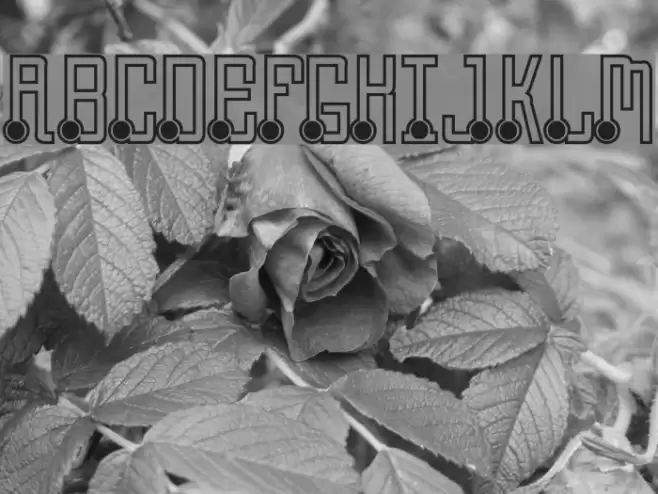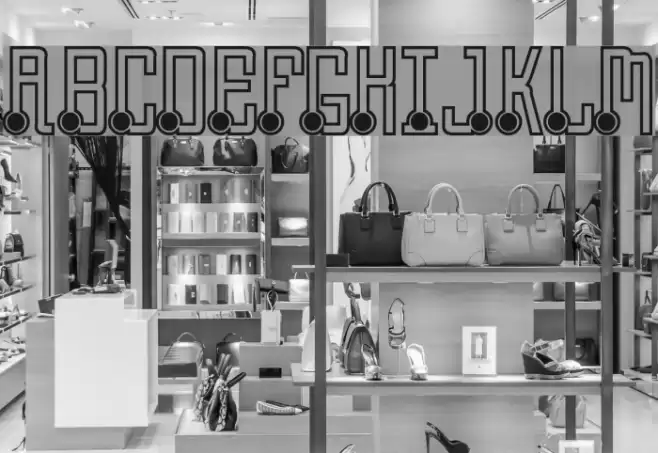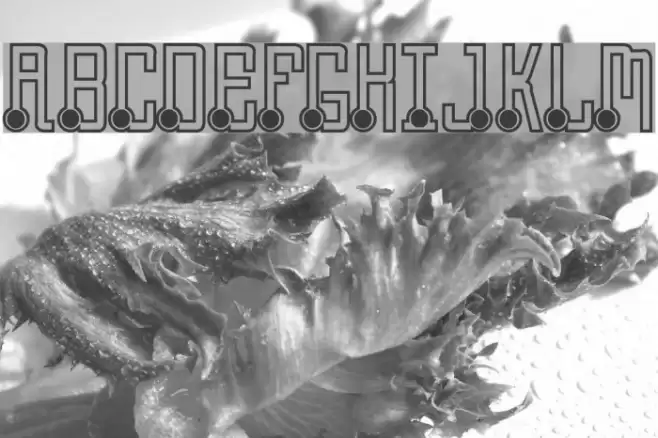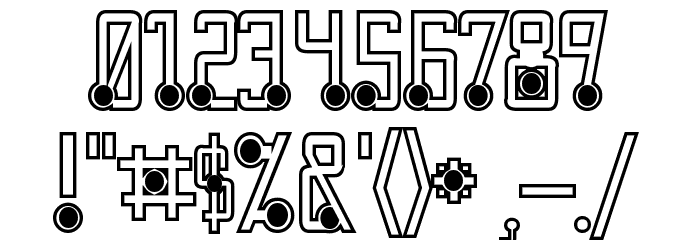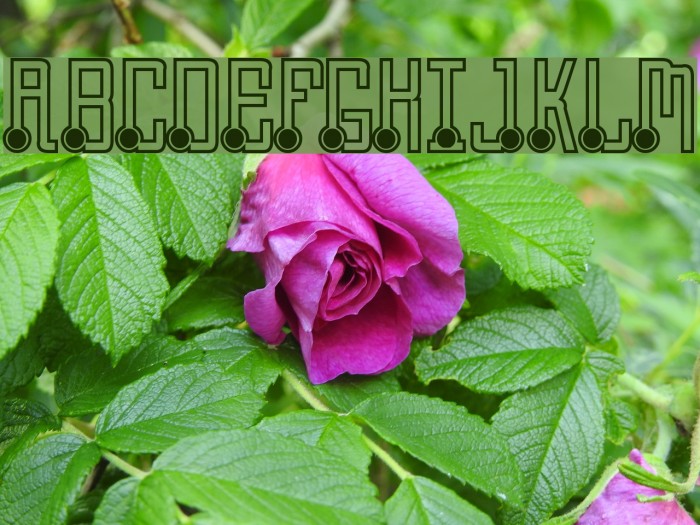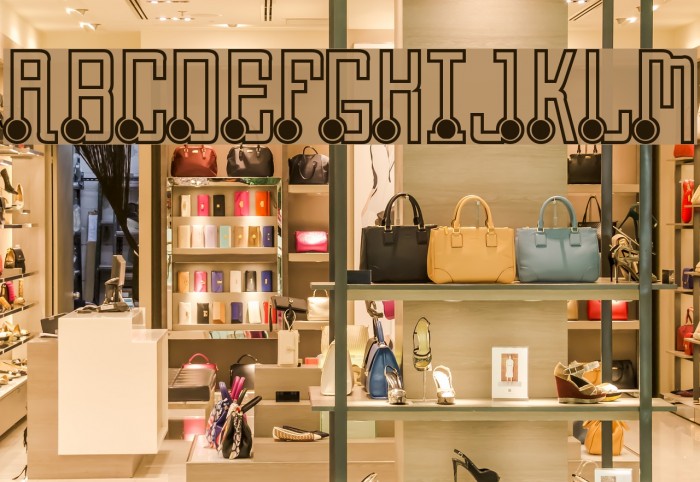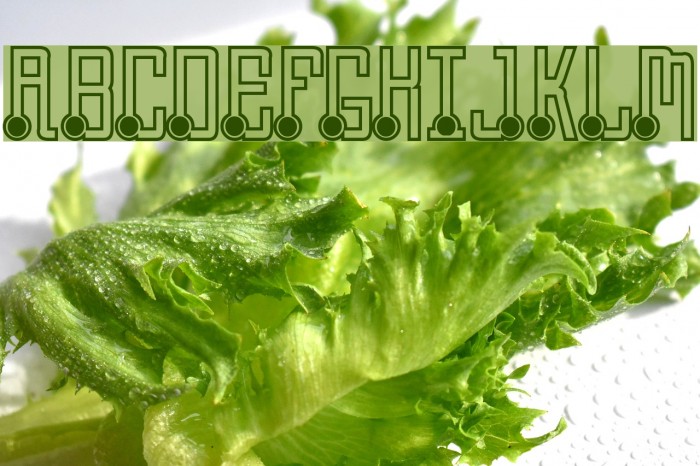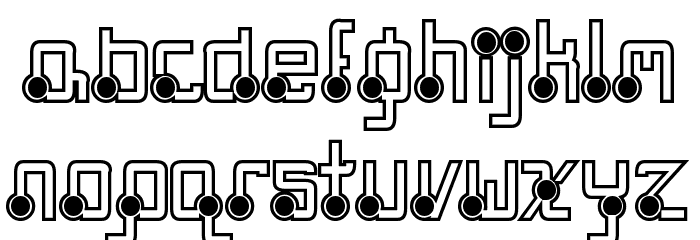
Quasidipitous Black Spot Font
Quasidipitous Black Spot Description
This font features a unique and playful design, characterized by bold, geometric letterforms with circular accents at the end of each stroke. The letters are outlined, giving them a hollow appearance, which adds to their distinctiveness. The circular elements are consistent across all characters, creating a cohesive look. This font is highly decorative and stands out due to its unconventional style, making it ideal for creative and eye-catching designs. The uppercase and lowercase letters maintain the same stylistic elements, ensuring uniformity throughout the typeface. Numbers and special characters are also included, each designed with the same attention to detail and creativity.
A bold, geometric font with circular accents and outlined letterforms from Decorative fonts.
- Proposed Projects: Ideal for posters, logos, and creative branding projects that require a standout, artistic touch.
- Use Case: Logos, Posters, Creative Branding